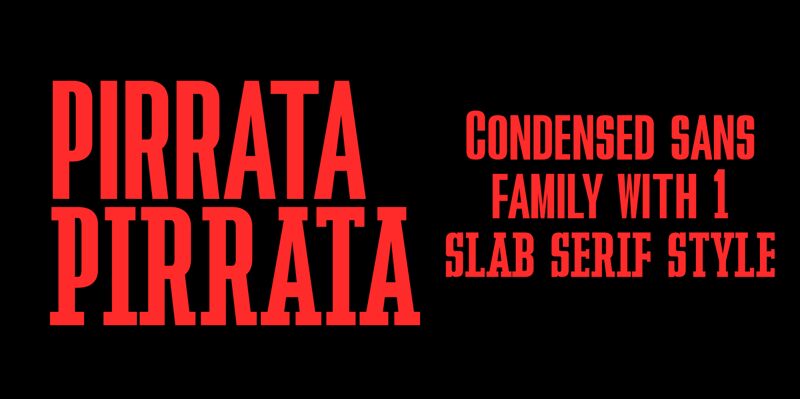
Pirrata Slab, designed by 4RM Font, is a semi-bold font that adds a touch of sophistication to any project. With its extra-condensed width and slab serif style, this font is perfect for creating eye-catching headlines and titles. Use it in print or digital media to grab attention and make a statement. Pirrata Slab is suitable for projects that require a bold and modern approach, such as fashion magazines or edgy startups' branding materials. Its versatility also makes it great for use in logos, packaging designs, and social media graphics. Bring your content to life with Pirrata Slab!
Inspired by retro posters, Pirata font brings a touch of retro aura to each character, made with 2 types of sans serif and slab serif, suitable for use in any retro-themed graphic design, especially posters.
Pirrata Slab